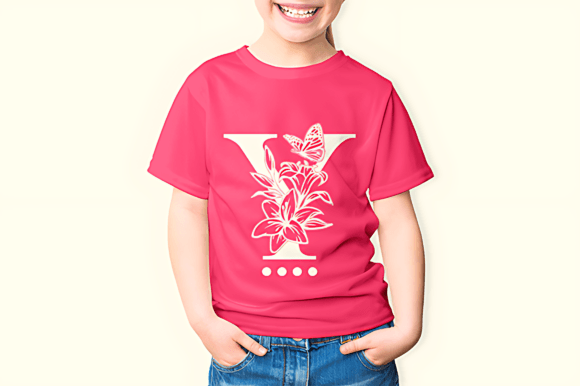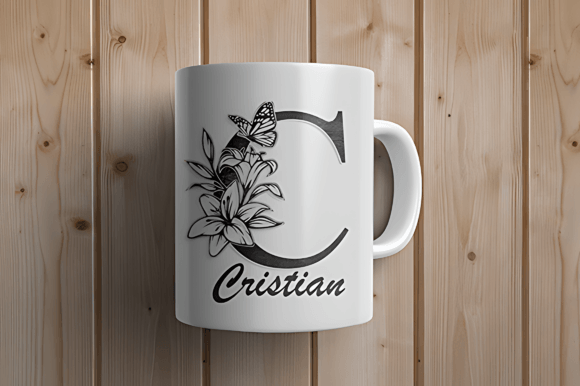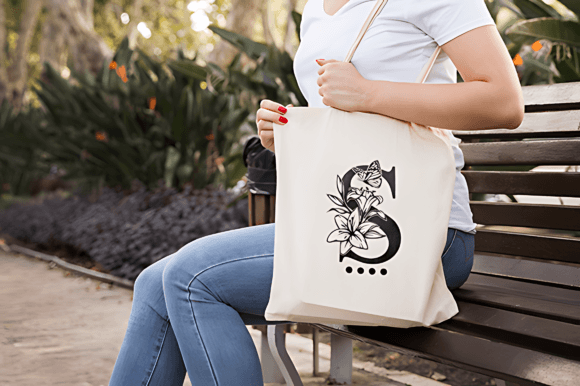
Betty Flowers Monogram Font
About the Betty Flowers Monogram Font
Presenting Betty Flowers Monogram Font, a unique and stylish typeface that will make your work stand out. Betty Flowers Monogram is an elegant decorative font, featuring lovely ornaments. Fall in love with its authentic feel and use it to create gorgeous wedding invitations, beautiful stationary art, eye-catching social media posts, and cute greeting cards.
Its elegant, decorative style makes it ideal for projects requiring a touch of vintage charm, such as wedding invitations, branding for boutiques or artisanal products, and short-form editorial design. The ornate details, however, make it less suitable for body text or UI elements where readability is paramount. Avoid using it for large blocks of text or in situations demanding high legibility.
Betty Flowers Monogram’s personality is sophisticated yet friendly. For a balanced pairing, consider a clean sans-serif like Montserrat for body copy or a classic serif like Garamond for a more formal feel. A playful script font, such as Great Vibes, could also complement its ornate flourishes for a cohesive yet varied look.
The font’s inherent decorative nature lends itself well to logos, short headlines, and packaging designs where visual impact is crucial. Avoid using it for websites or applications requiring a high level of accessibility.
Betty Flowers Monogram Font Usage Examples
Betty Flowers Monogram Font Example